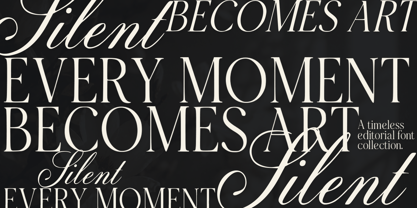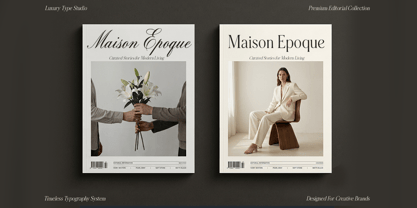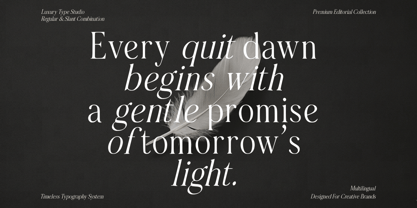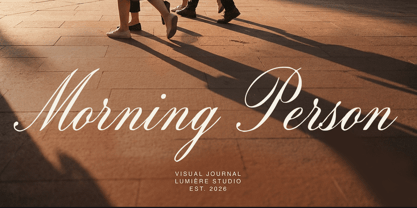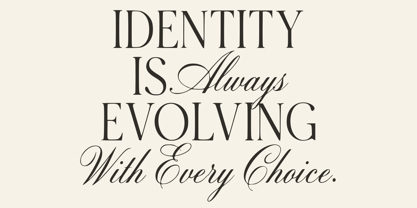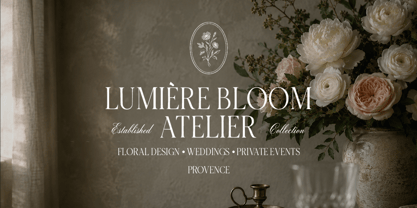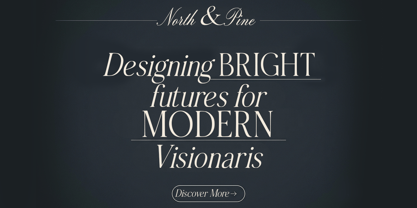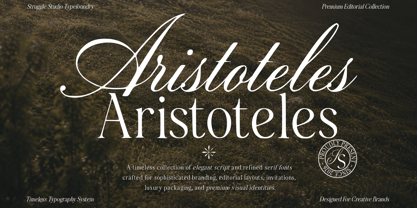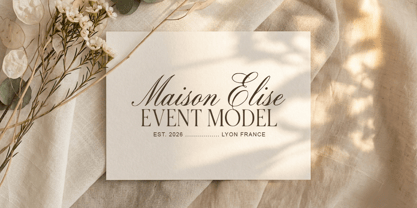
Aristoteles
Die Schriftfamilie Aristoteles wurde von Andri Kurniawan entworfen und von Struggle Studio veröffentlicht. Aristoteles enthält 3 Stile und Familienpaketoptionen. Mehr über diese Familie
The Aristoteles Font Duo is a masterpiece of modern typography, a meticulously crafted pairing of an exquisite script and a refined serif font. Designed for creative brands and premium visual identities, this collection offers a seamless blend of classic sophistication and contemporary style.
The Script: The Aristoteles Script features graceful strokes, flowing lines, and a touch of organic charm. Its fluid curves and ornate details exude romance and refinement, perfect for creating memorable logos, sophisticated wedding invitations, and bespoke packaging.
The Serif: The Aristoteles Serif is a pillar of strength and clarity. Its clean lines, balanced proportions, and sharp details provide a modern touch to traditional elegance. Use it for impactful headlines, legible editorial layouts, and authoritative branding that makes a statement.